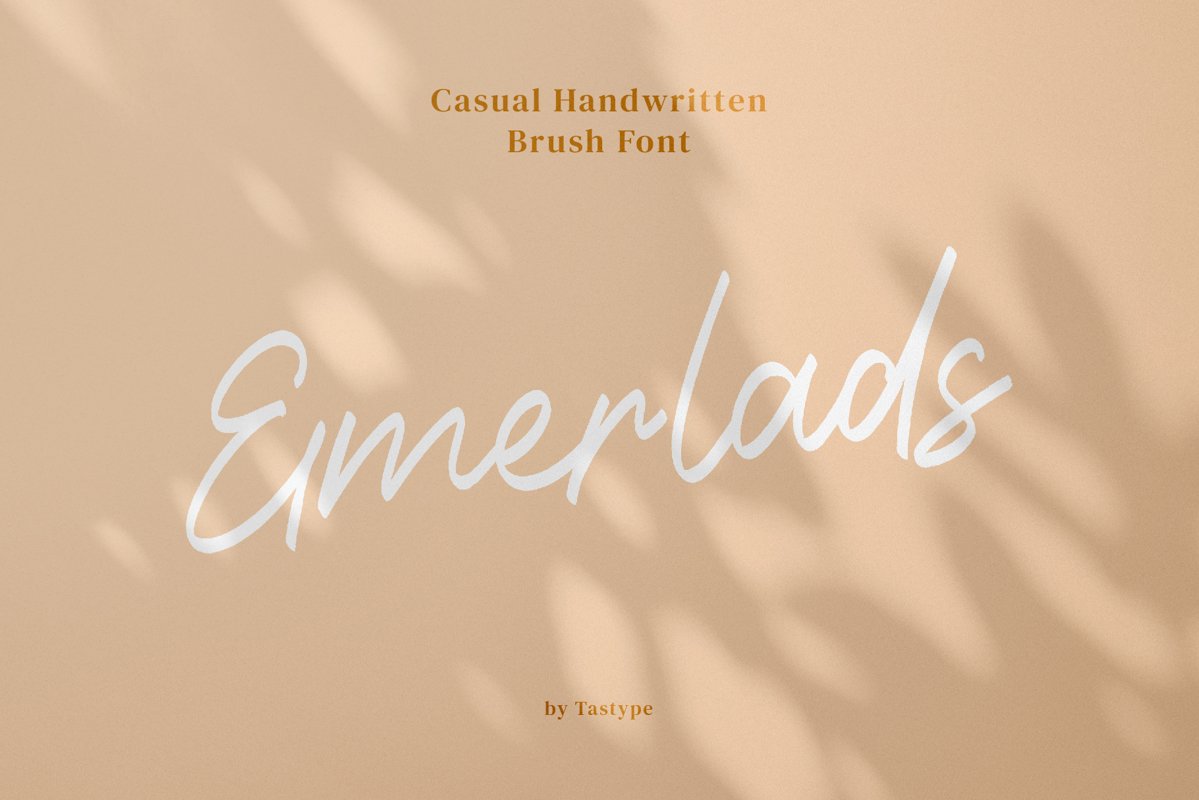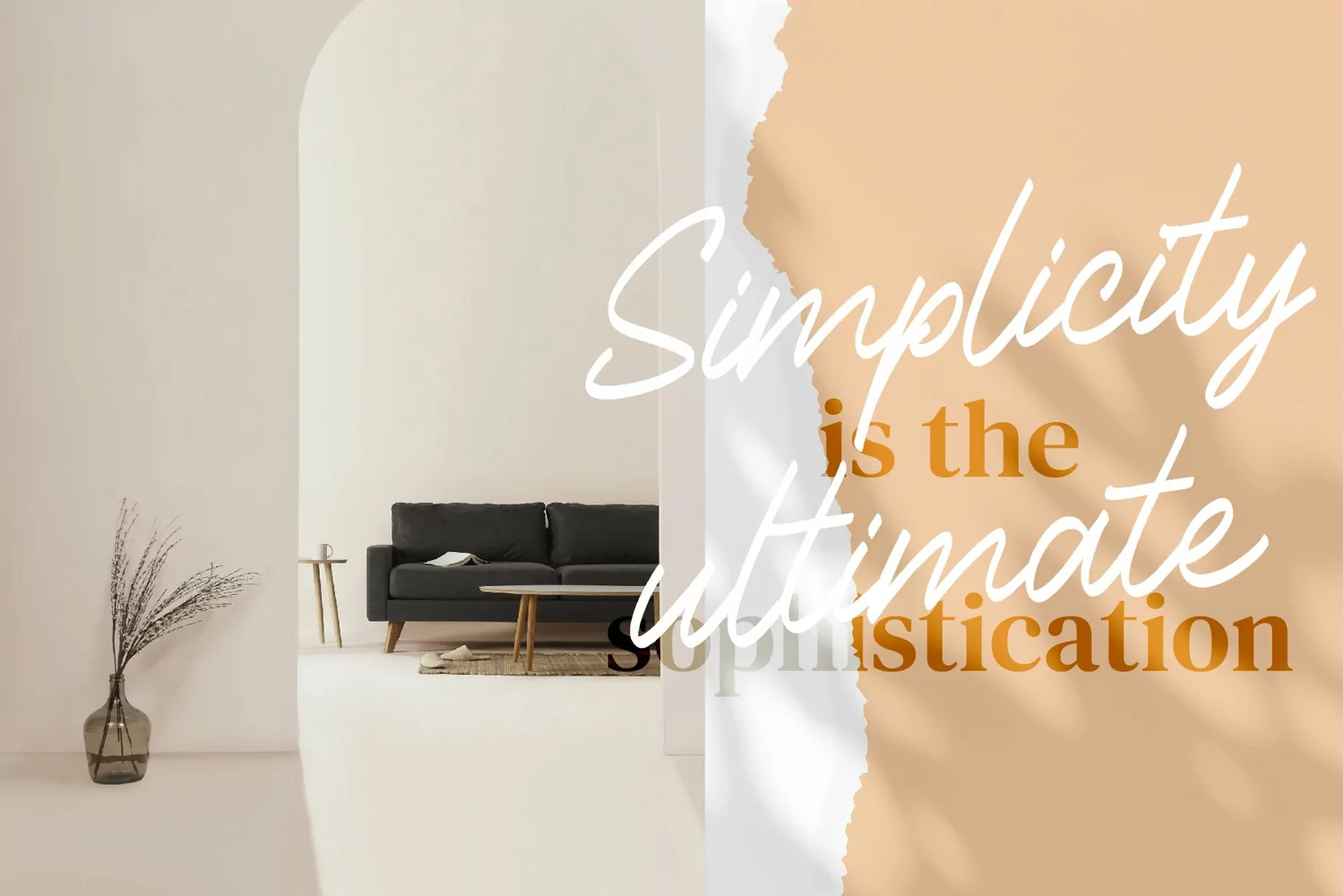
Introducing Emerlads, elegant handwritten font with quick a signature style. Emerlads great to use for logos, inspirational quotes, t-shirt graphics, typography art, apparel, labels, posters, business cards, stylized wedding invitations, prints, signs, book cover designs headlines, titles, etc.